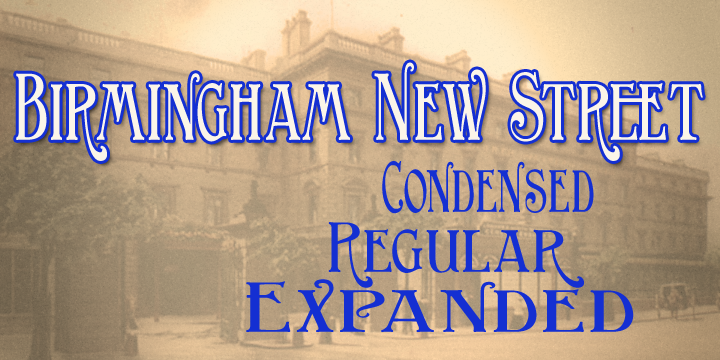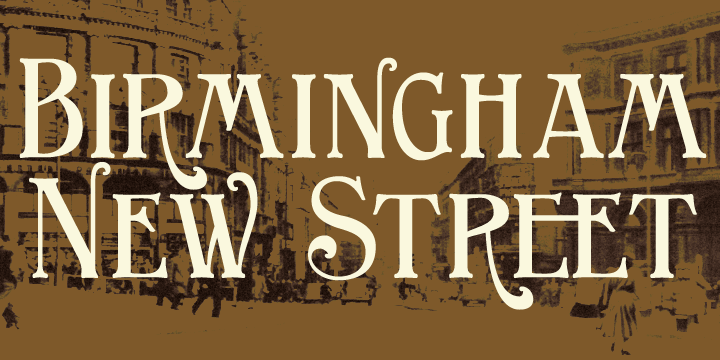
Birmingham New Street Condensed
Birmingham New Street Condensed is a display serif font family. This typeface has three styles and was published by Greater Albion Typefounders.
Birmingham New Street is the latest updated development of a typeface family inspired by the hand lettered title on a 19th century railway map..
The map, prepared by the London and North Western Railway was headed "Birmingham and environs".
New Street, meanwhile is the great 19th century commercial road linking the city centre of Birmingham with the train station of the same name.
So, in a spirit of 19th century enterprise, we present "Birmingham New Street", a fun family of three display faces, laden with open type features and late Victorian charm, ideal for posters, book covers and any other high flown design you might have in mind.